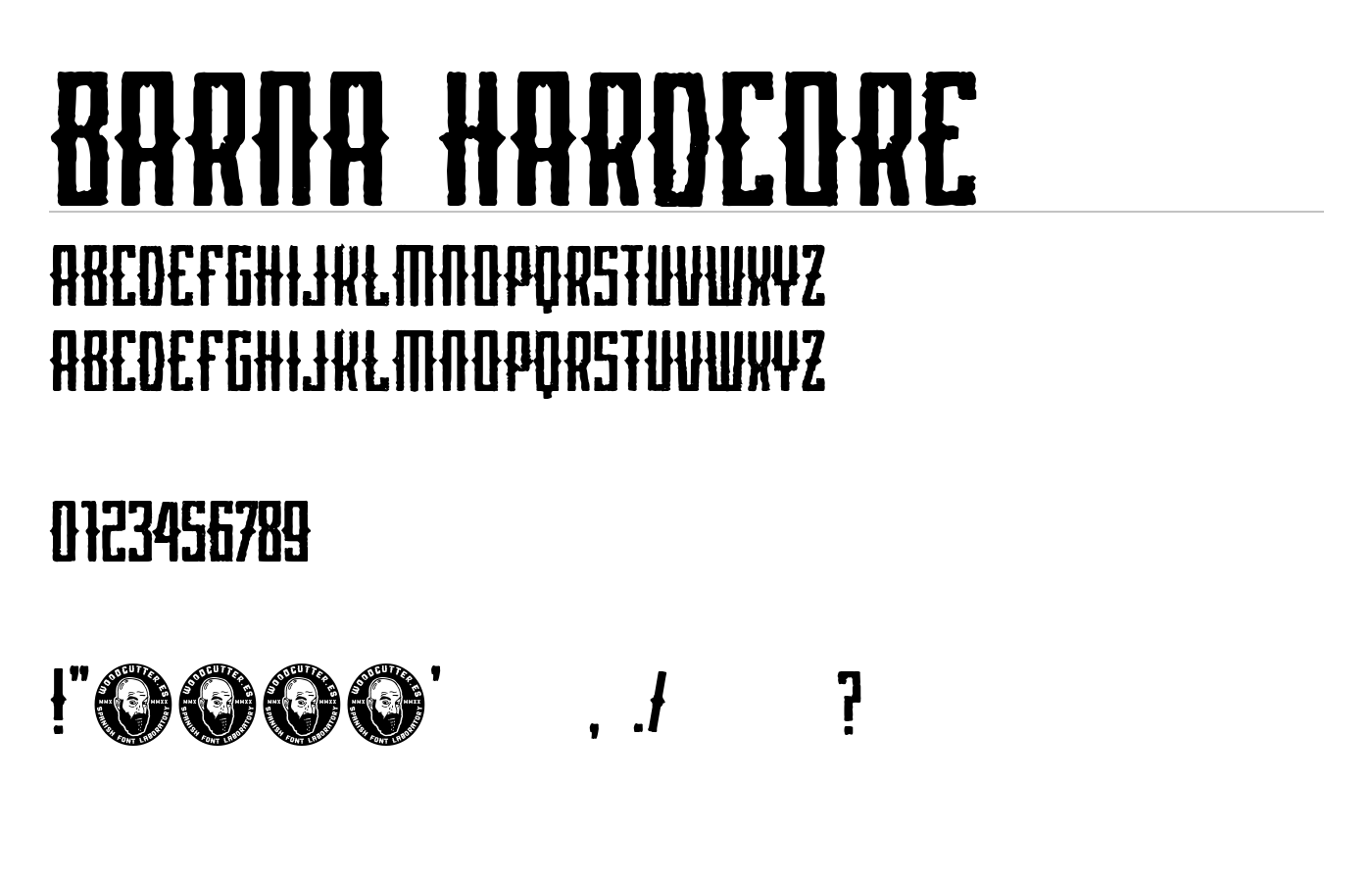
Barna Hardcore is a bold, condensed sans serif font with a rugged, industrial feel highlighted by sharp, irregular edges and blocky letterforms. Its high contrast between thick and thin strokes combined with a tall x-height gives it a strong, assertive presence that works great for impactful headlines, posters, and branding with an edgy or hardcore style. This font’s unique character makes it perfect for designs seeking a tough, authentic vibe.
Barna Hardcore Font
About Barna Hardcore Font